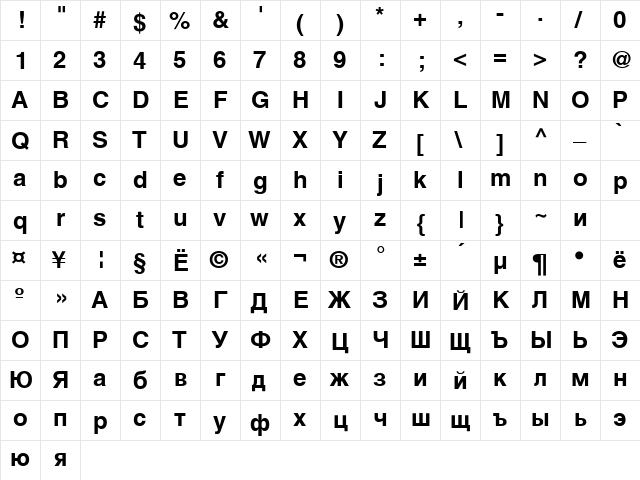
AGHlvCyrillic Bold
Design Context for AGHlvCyrillic Typeface
AGHlvCyrillic is a composed and adaptable typeface that performs quietly and consistently across a wide range of design contexts. Its bold stroke weight gives it real presence on the page.